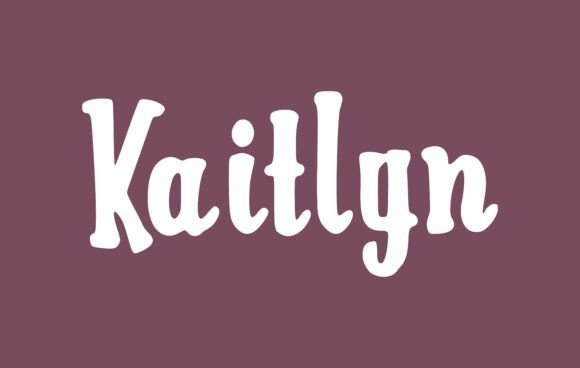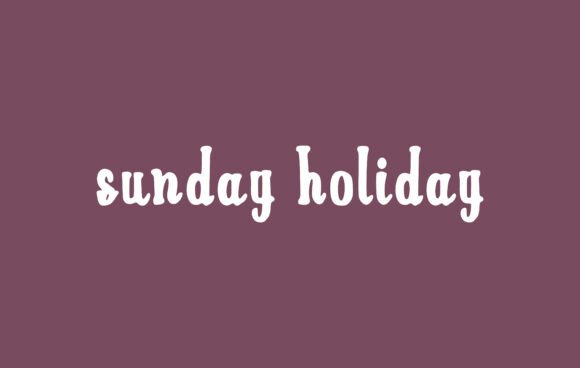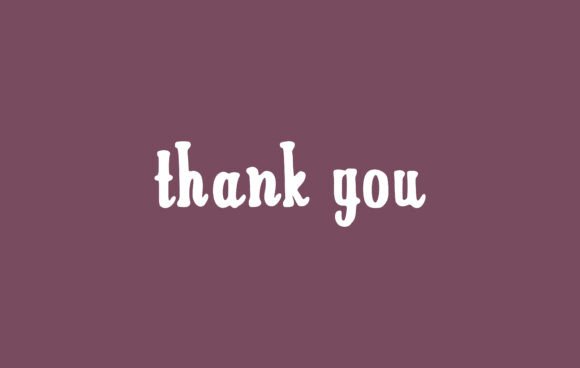
Unlock Your Creative Potential with the Perfect Font
Have you ever been working on a design project, pouring your heart and soul into it, only to feel like something’s missing? The right font can be the difference between a good design and a great one. That’s where Kaitlyn Font comes in – a beautiful, authentic handwritten font that’s sure to elevate your creative ideas.
Expertly designed to add a touch of romance to your designs, Kaitlyn Font is perfect for magazine headlines, social media, branding, wedding invitations, and more. Its legibility makes it a great choice for both title and body text, ensuring your message is conveyed clearly and effectively. Whether you’re a seasoned designer or just starting out, Kaitlyn Font is a valuable addition to your toolkit.
Kaitlyn Font Key Features
- Font Family: Kaitlyn
- Font Styles: Regular, Italic, Bold, Bold Italic
- Unique Characteristics: Elegant, modern design with a high x-height, making it suitable for body text and titles in various contexts
Kaitlyn Font Review
I recently had the chance to work with the Kaitlyn font, and I have to say it’s a lovely addition to any design project. ✨ The font’s friendly and approachable feel makes it perfect for creating a warm and inviting atmosphere.
- ✨ The Kaitlyn font is highly legible, making it great for body text.
- ✨ The font’s friendly feel makes it perfect for creating a welcoming brand identity.
- ✨ Kaitlyn font has a wide range of weights and styles, allowing for great flexibility in design projects.
- ⚠️ The font may not be as sophisticated or elegant as some other fonts, which could be a limitation for more formal or professional projects.
- ⚠️ Kaitlyn font may not be as effective for headlines or titles, as it can be a bit too casual.
Overall, I think the Kaitlyn font is a great choice for designers looking to create a friendly and approachable brand identity. While it may not be suitable for all types of projects, it’s a versatile and legible font that can add a lot of value to a design.
Tips for Getting the Most Out of Kaitlyn Font
1. Use Kaitlyn Font for titles and headings to create a bold and eye-catching effect.
2. Pair Kaitlyn Font with other fonts to create a visually appealing contrast.
3. Experiment with different font sizes and colors to maximize the impact of Kaitlyn Font.